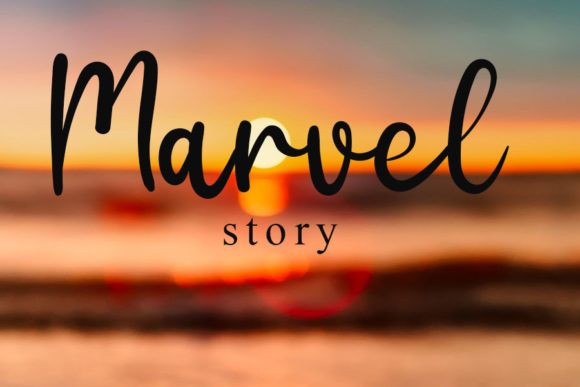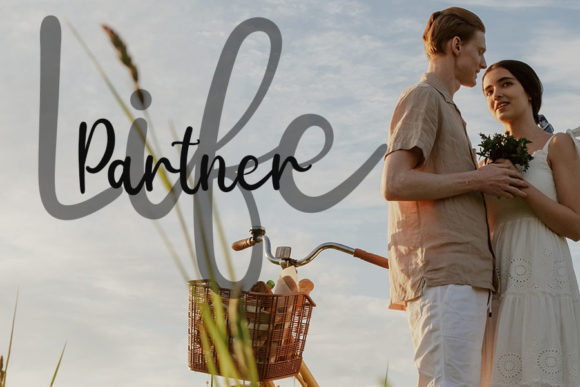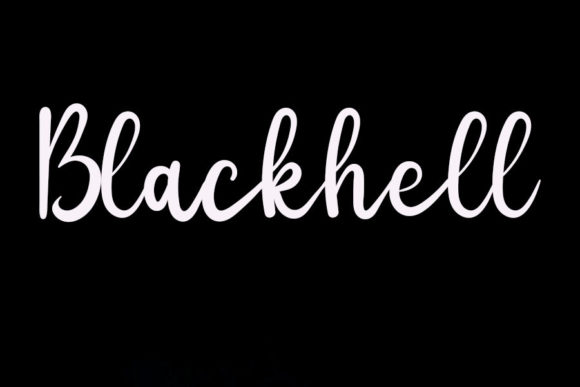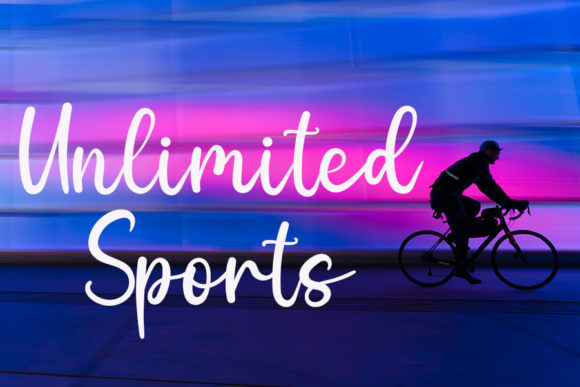
Introduction to Party House Font
Party house font is an enchanting handwritten font.
This versatile typeface has a wide spectrum of applications ranging from greeting cards to headlines and is guaranteed to add a romantic feel to your next project .